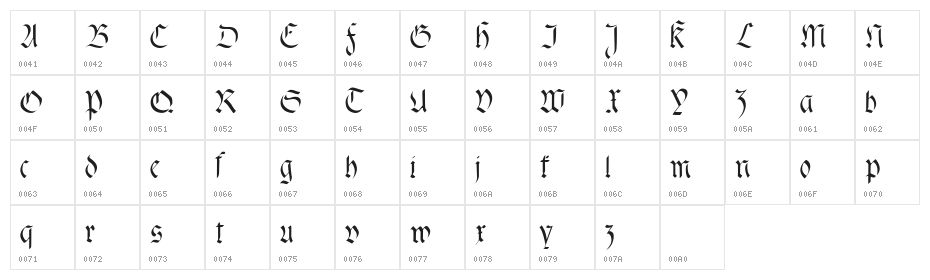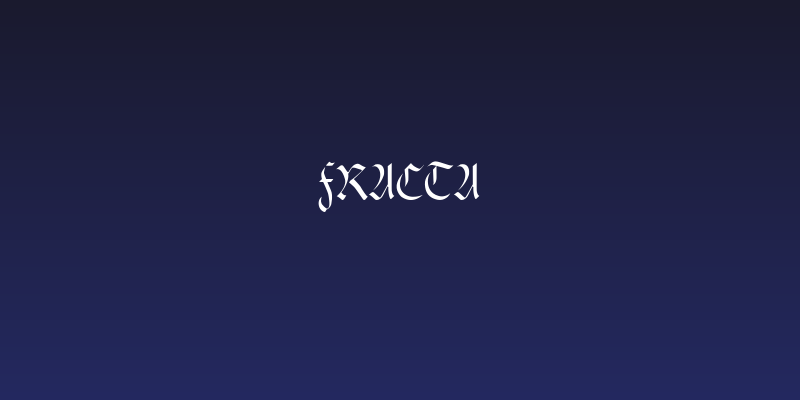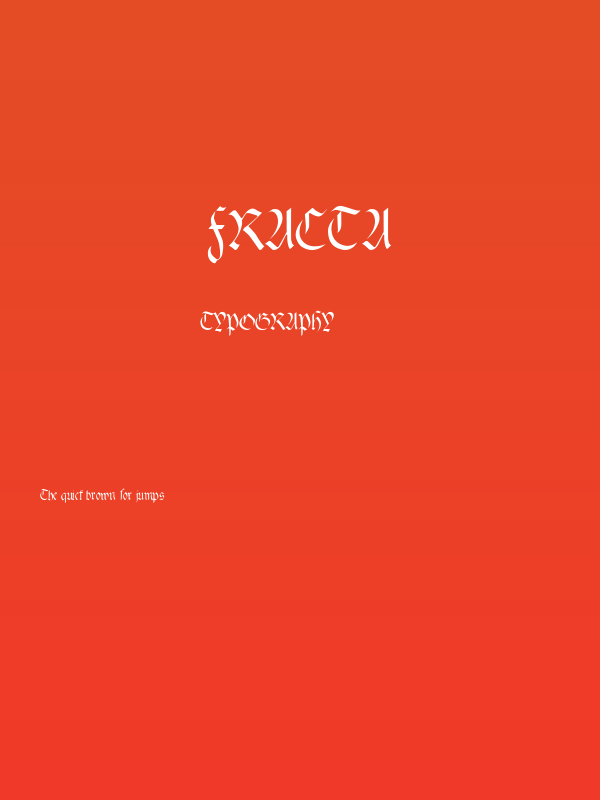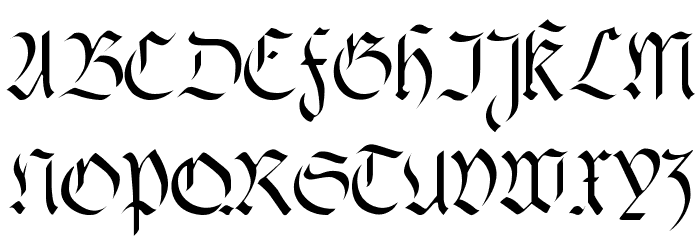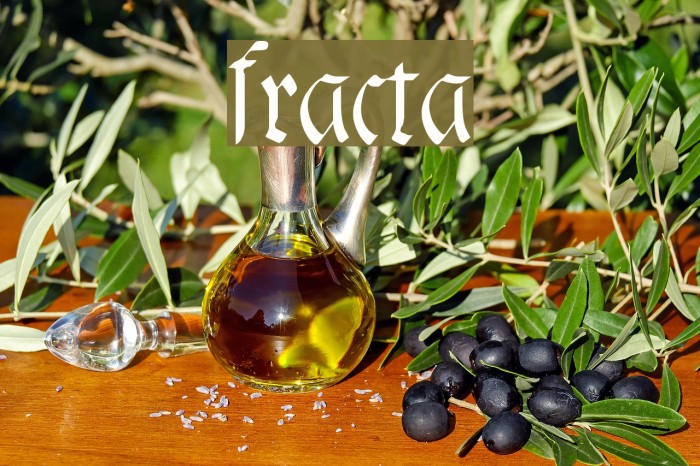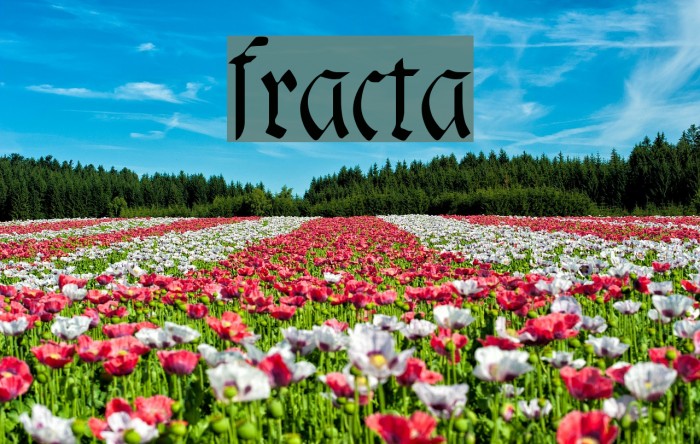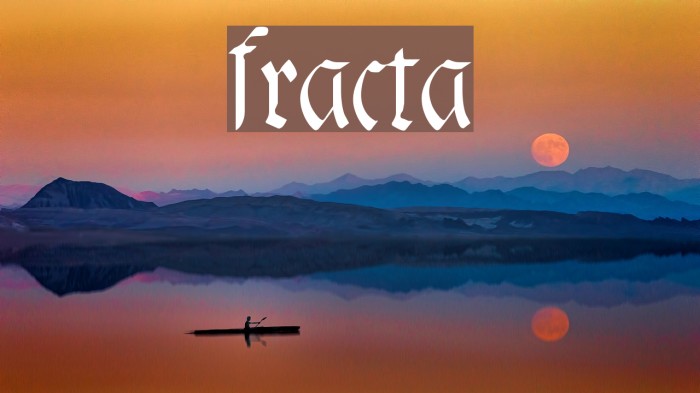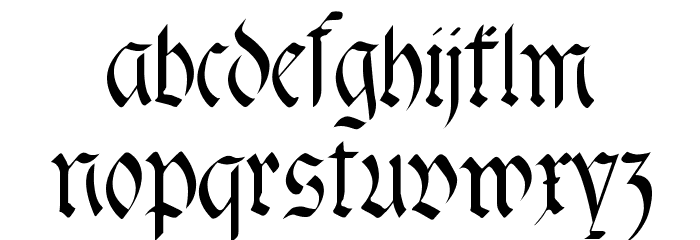
fracta Font
fracta Description
This font is a classic example of Blackletter style, characterized by its ornate and intricate design. The letters feature sharp, angular lines with dramatic contrast between thick and thin strokes, typical of traditional Gothic scripts. The uppercase letters are particularly elaborate, with decorative flourishes that add a sense of grandeur and historical depth. The lowercase letters maintain the same level of detail, ensuring consistency throughout the text. This font evokes a sense of antiquity and formality, making it suitable for projects that require a touch of elegance and tradition.
| Proposed Projects | Ideal for historical documents, certificates, wedding invitations, and branding that requires a classic touch. |